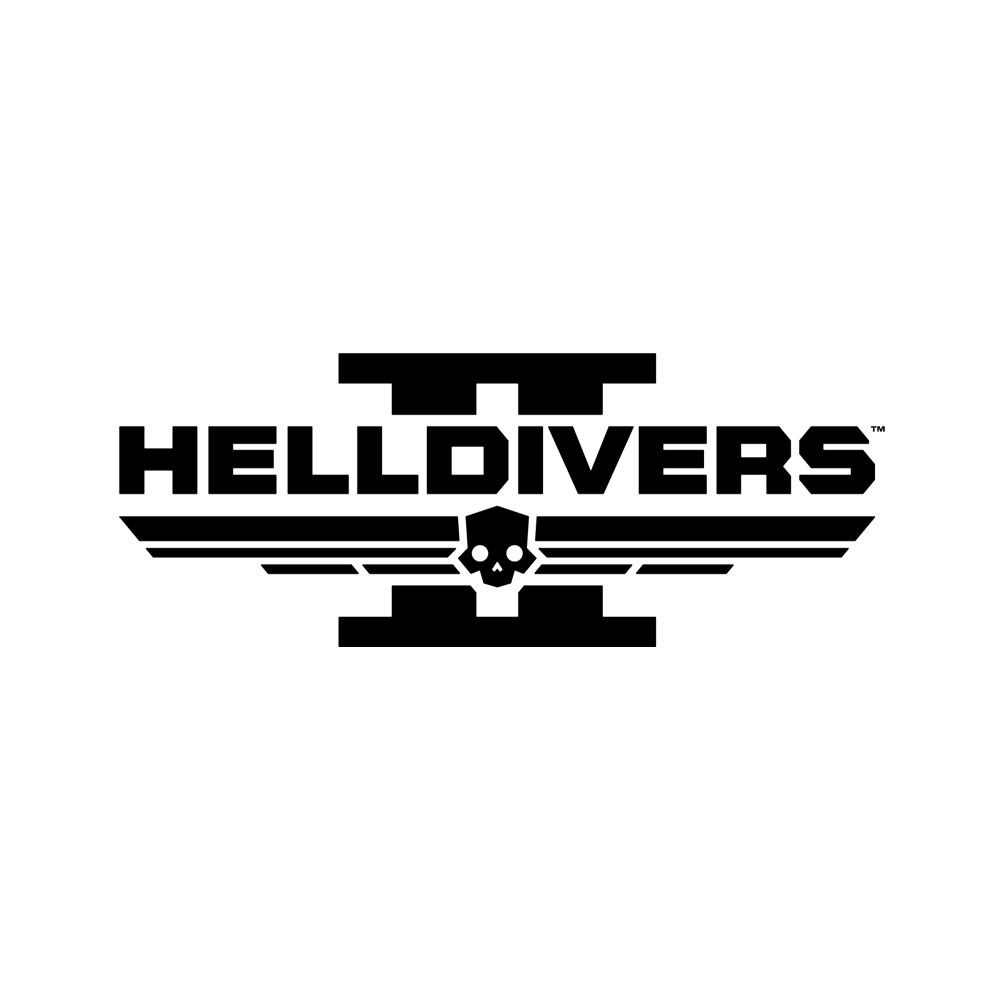
Helldivers Font
Fonts in UseHelldivers is a top-down shooter video game that can be played solo or cooperatively with up to four players. Players are part of an elite military unit and must battle hordes of alien enemies in intense and challenging missions.
The game's logo features Insignia Regular, a geometric sans serif font created by Neville Brody in 1989. More information about Insignia Regular can be found here.